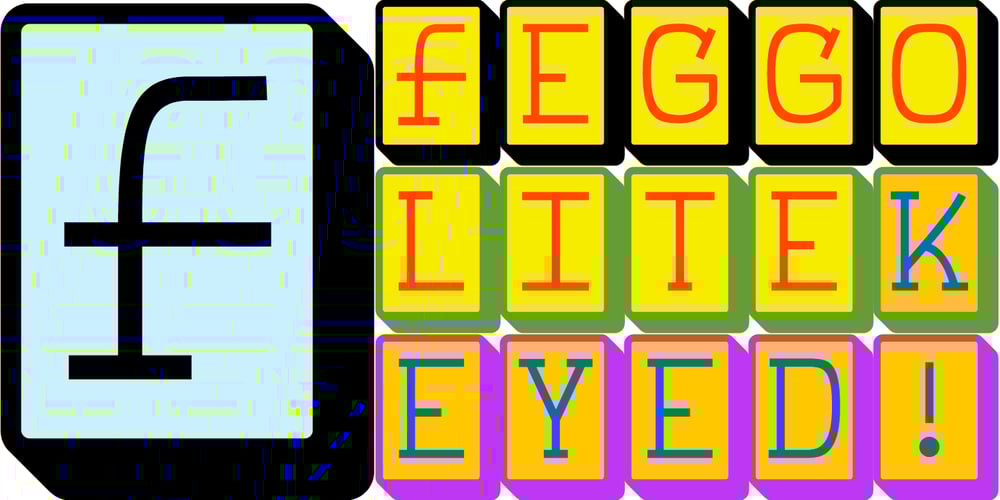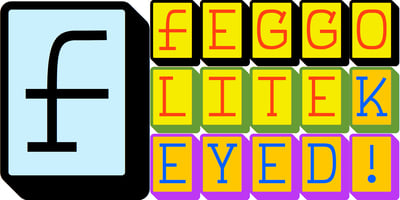
FeggoliteKeyed
FeggoliteKeyed font
FeggoliteKeyed Font Family was designed by Robert Schenk and published by Ingrimayne Type. FeggoliteKeyed contains 1 styles and family package options. FeggoliteKeyed has letters on rounded rectangles with shadows. The letter shapes are from a decorative, monospaced font called FeggoliteMono. The typeface contains characters that will add color to letters. There are two ways to do this. One uses layers and the other a combination of characters, some with zero-width.